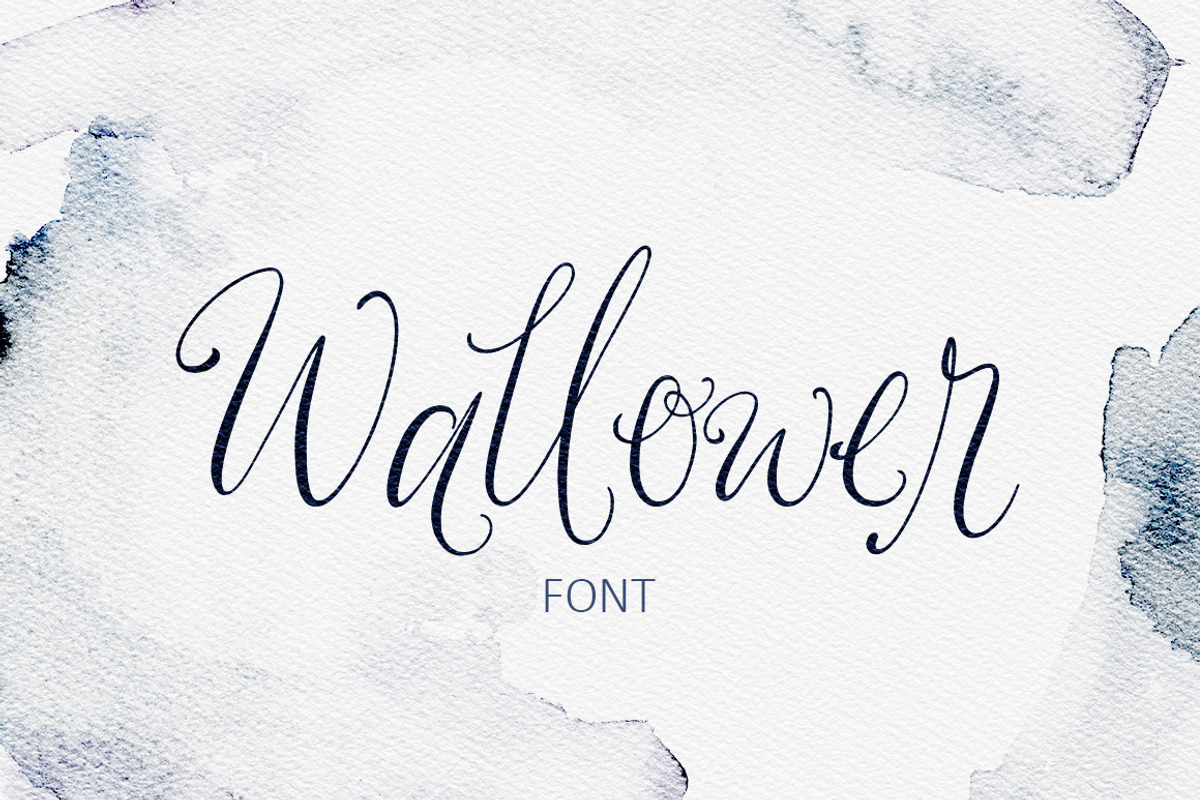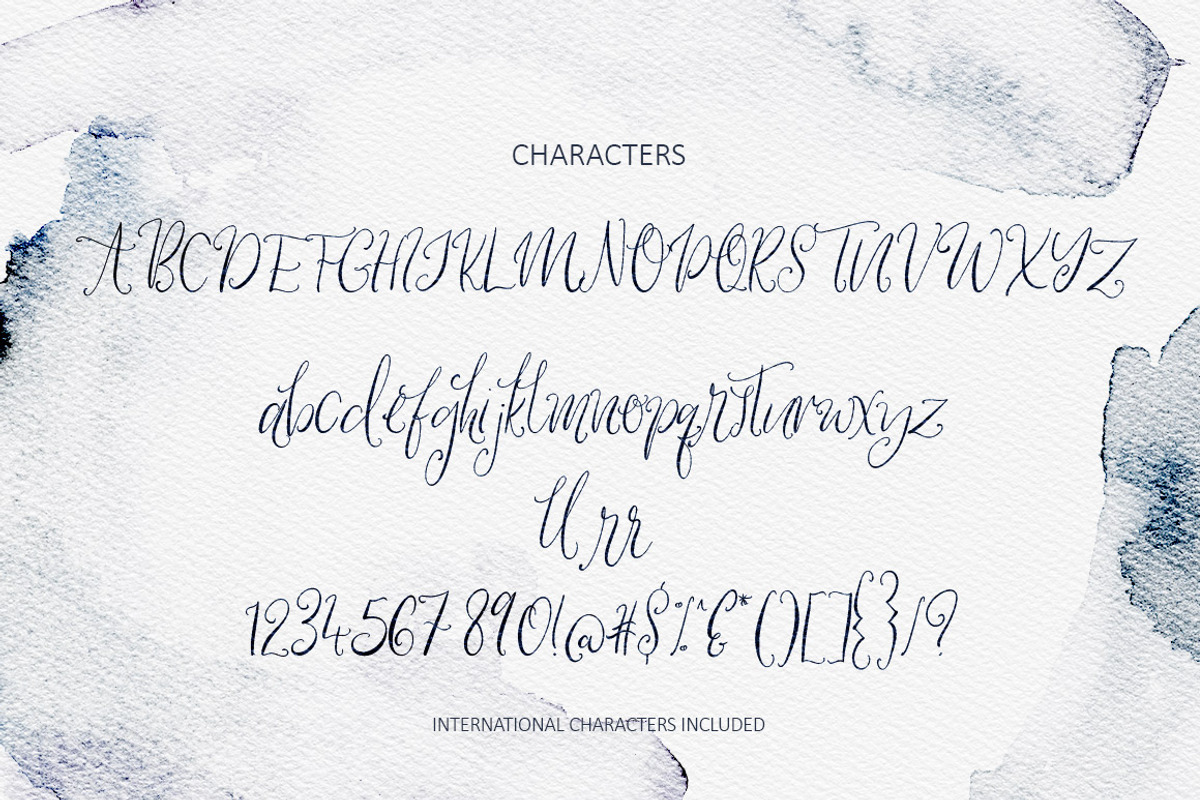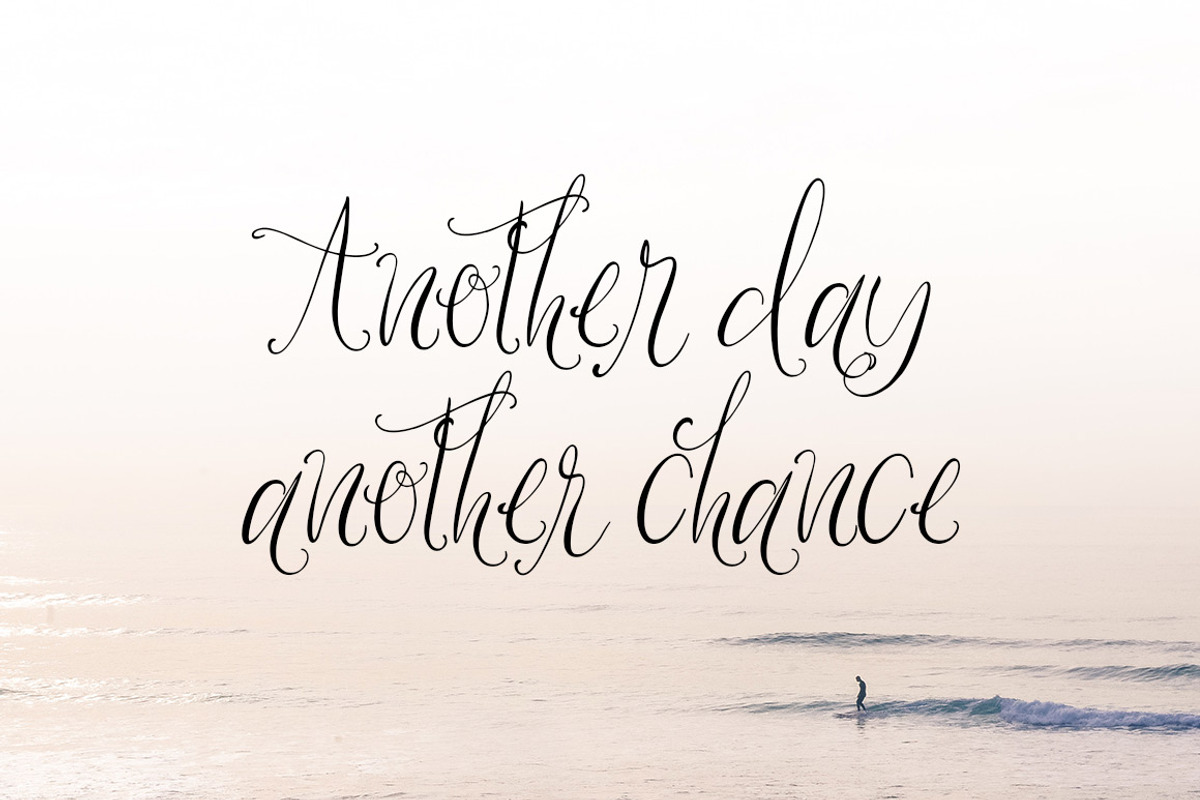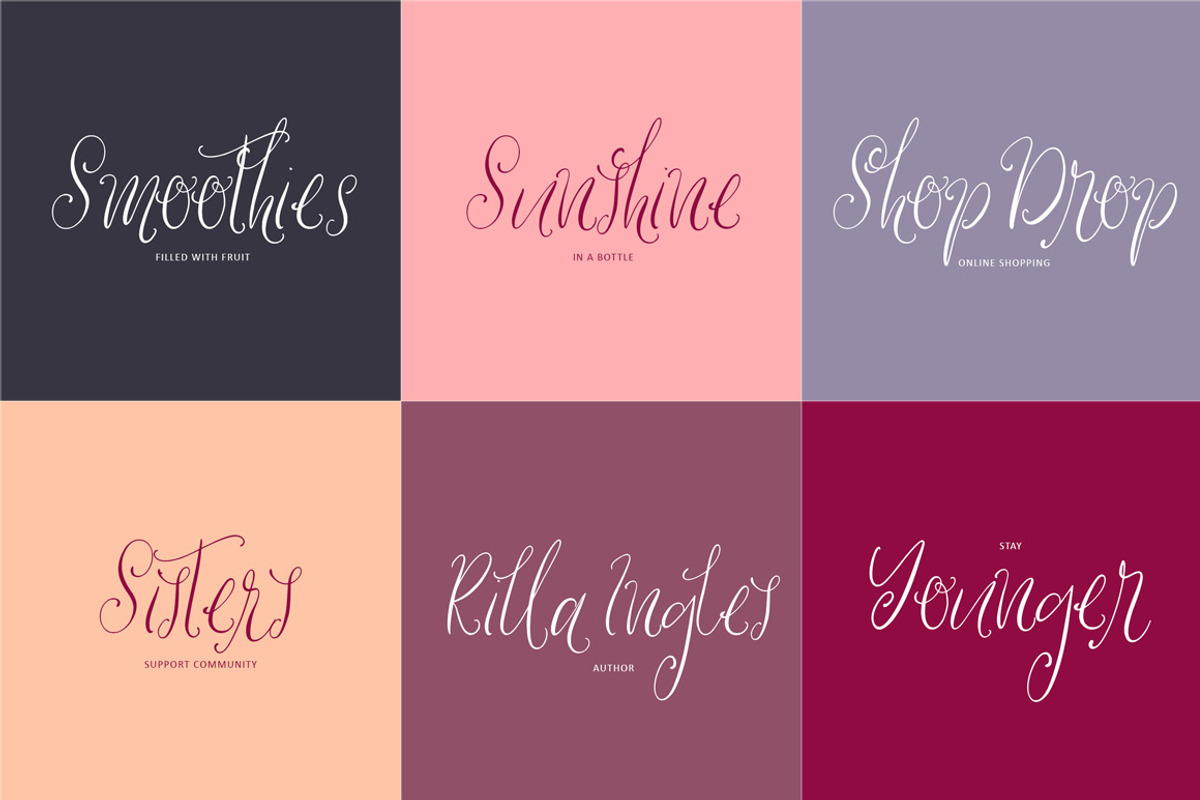
Wallower Script Font
Introducing Wallower script font.
Wallower is a gorgeous scrolling script with loads of character and charm. Use it for your wedding, blog, social media, quotes, prints, birthdays, cards, book covers and much more.
- International characters are included.
Wallower Script Font by Creativeqube Design fits naturally into Branding, posters, packaging, typography.